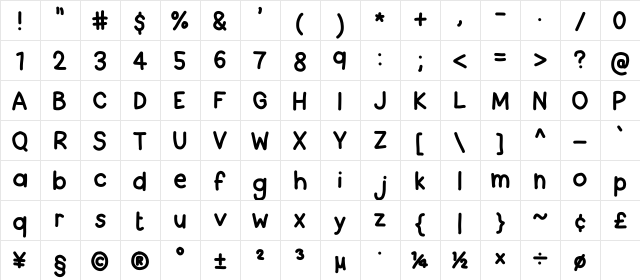
Back to School Medium
Design Context for Back to School
Back to School is a composed and adaptable typeface that performs quietly and consistently across a wide range of design contexts.
Pro Tip: Use Back to School in both headline and body roles to test its range before committing to a single application.